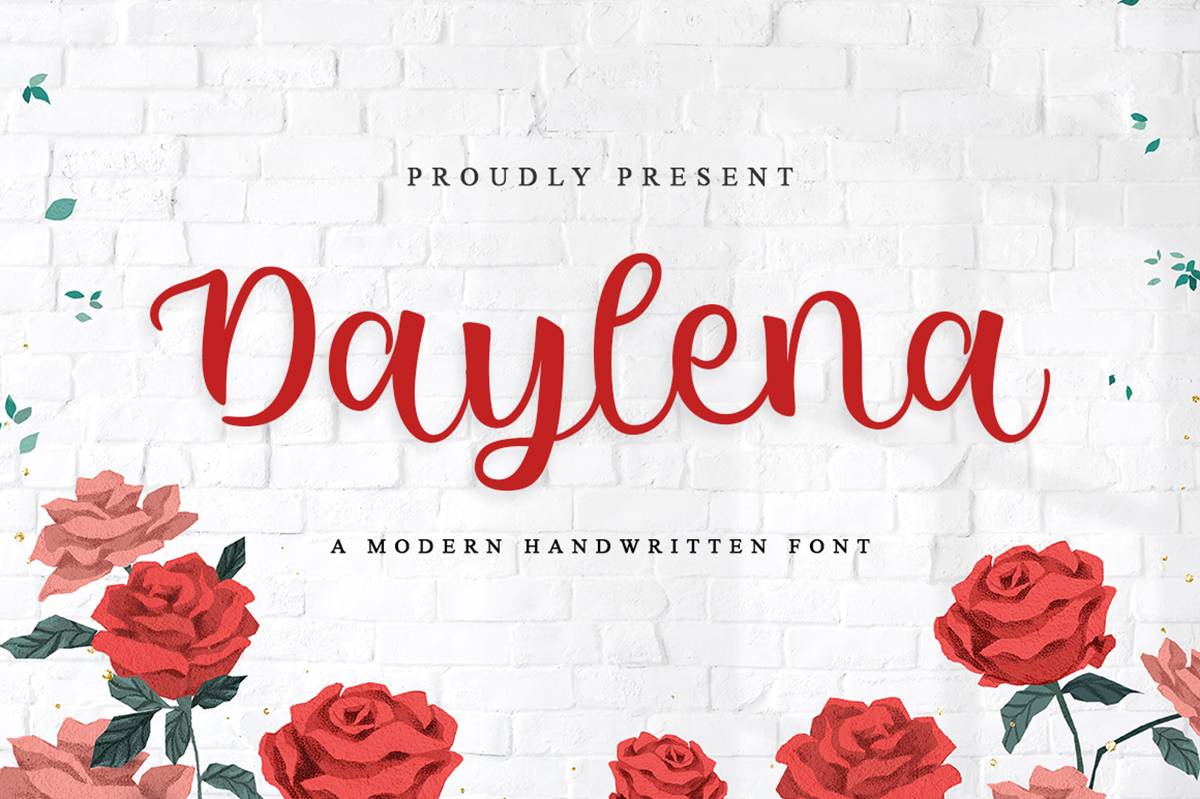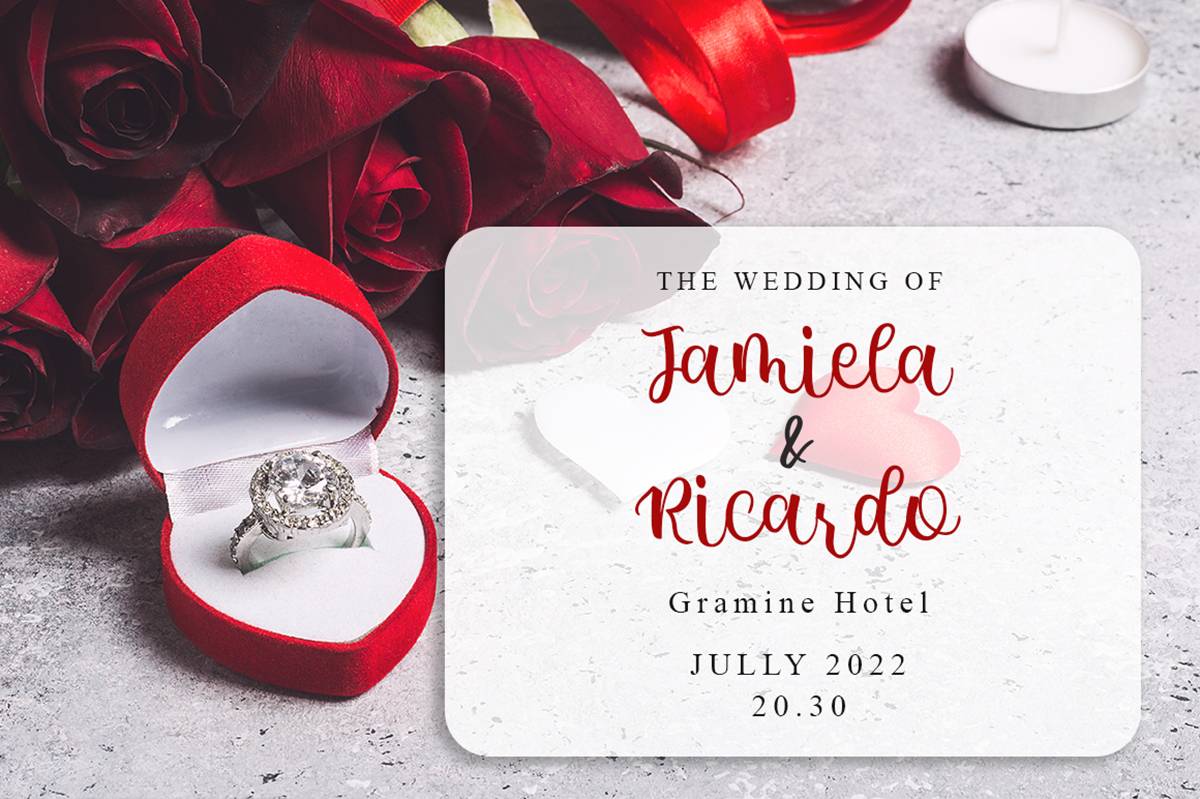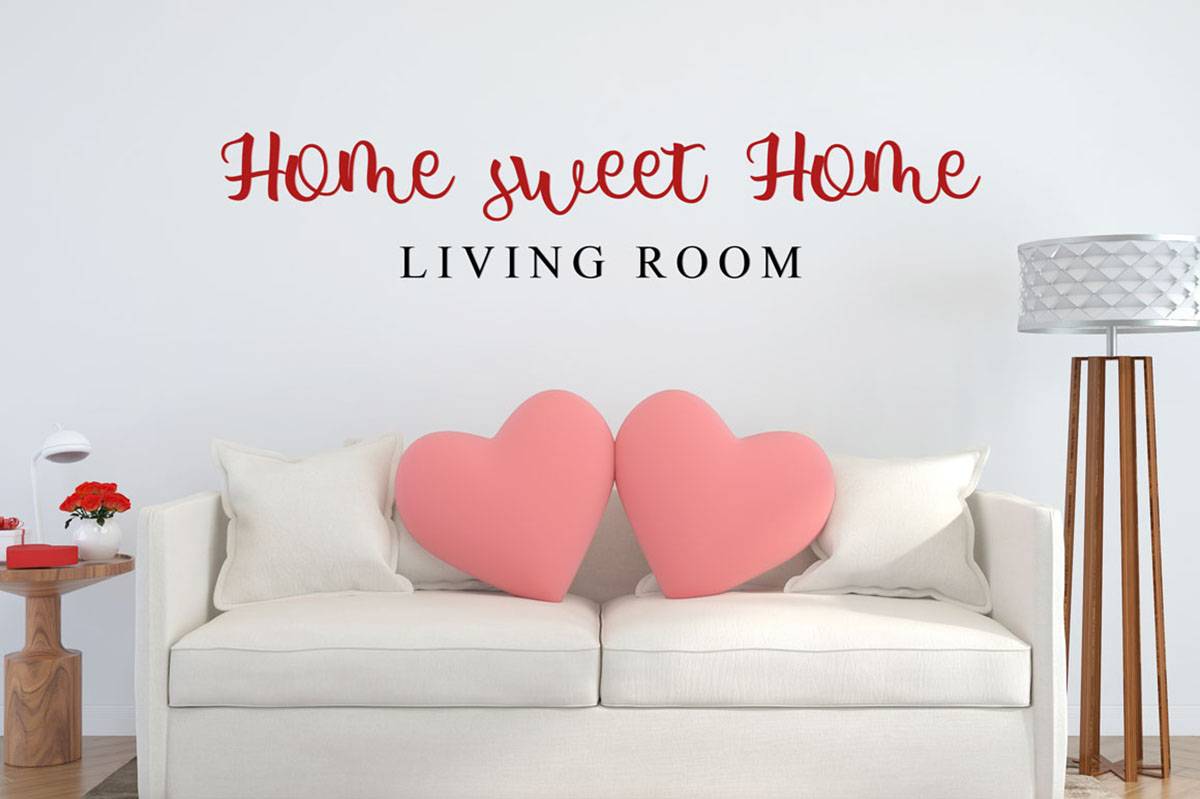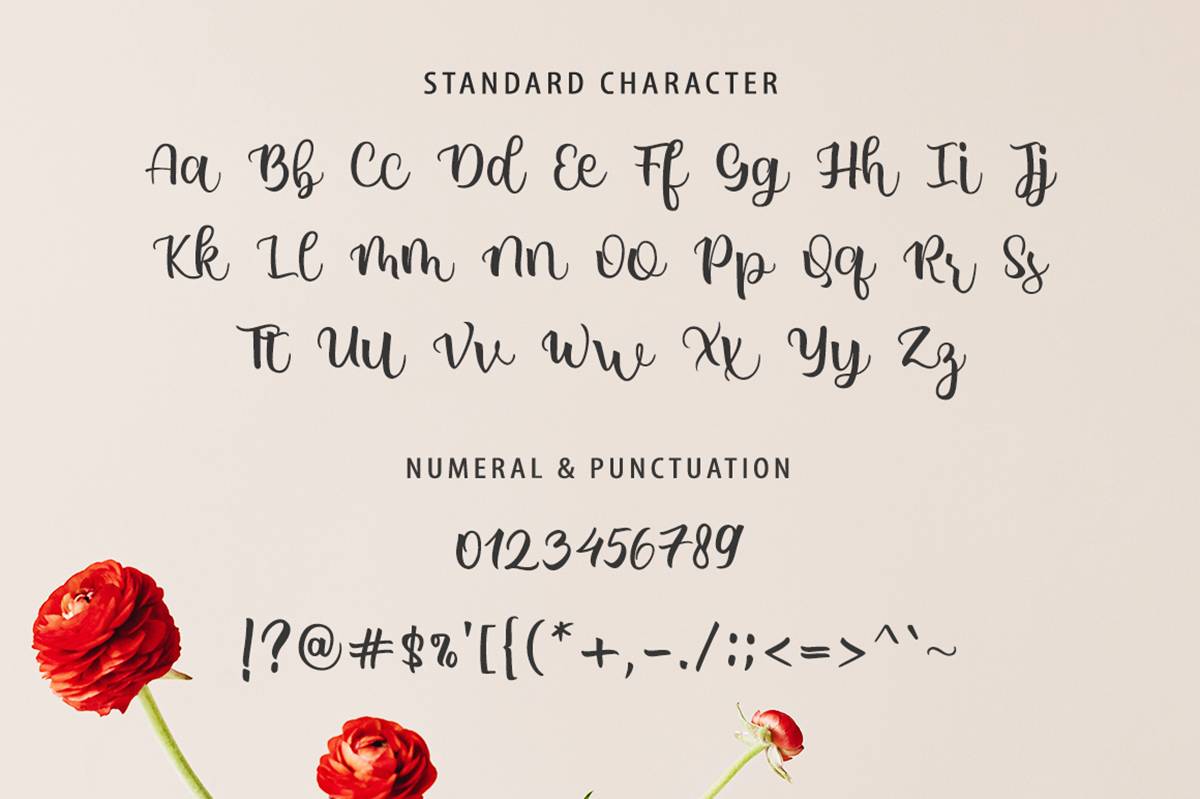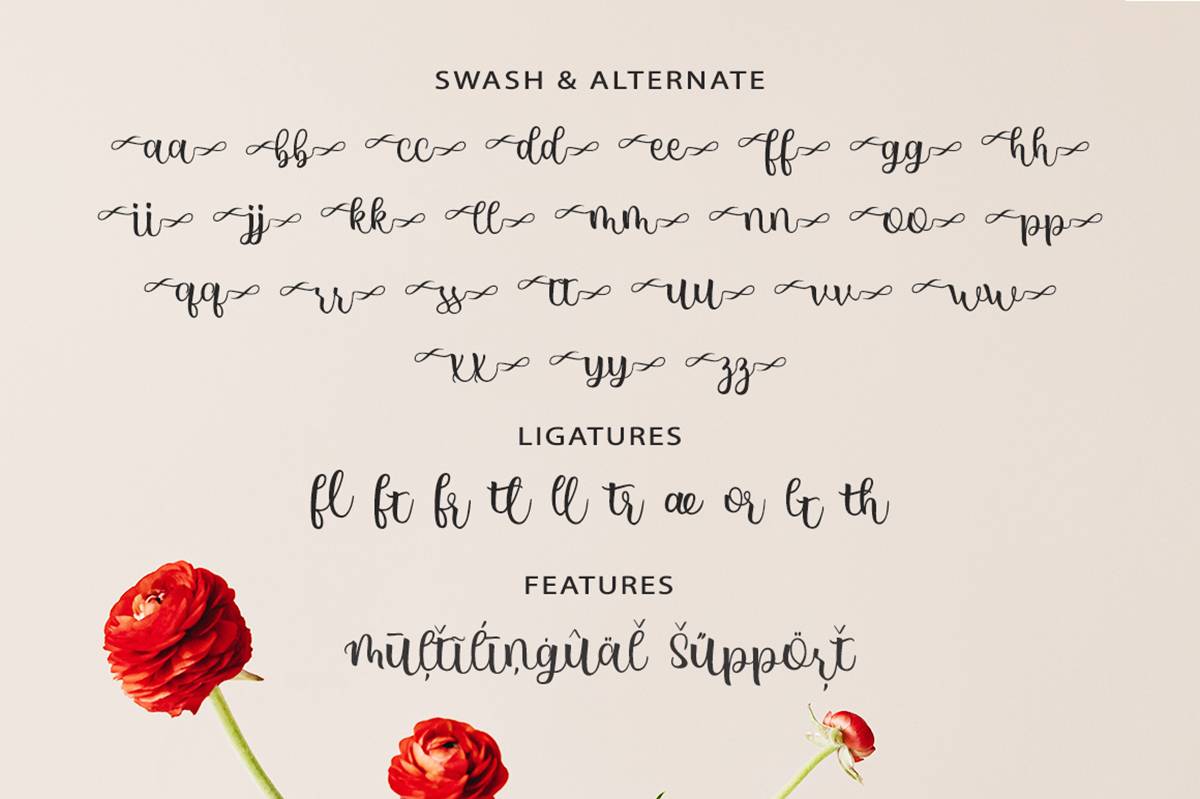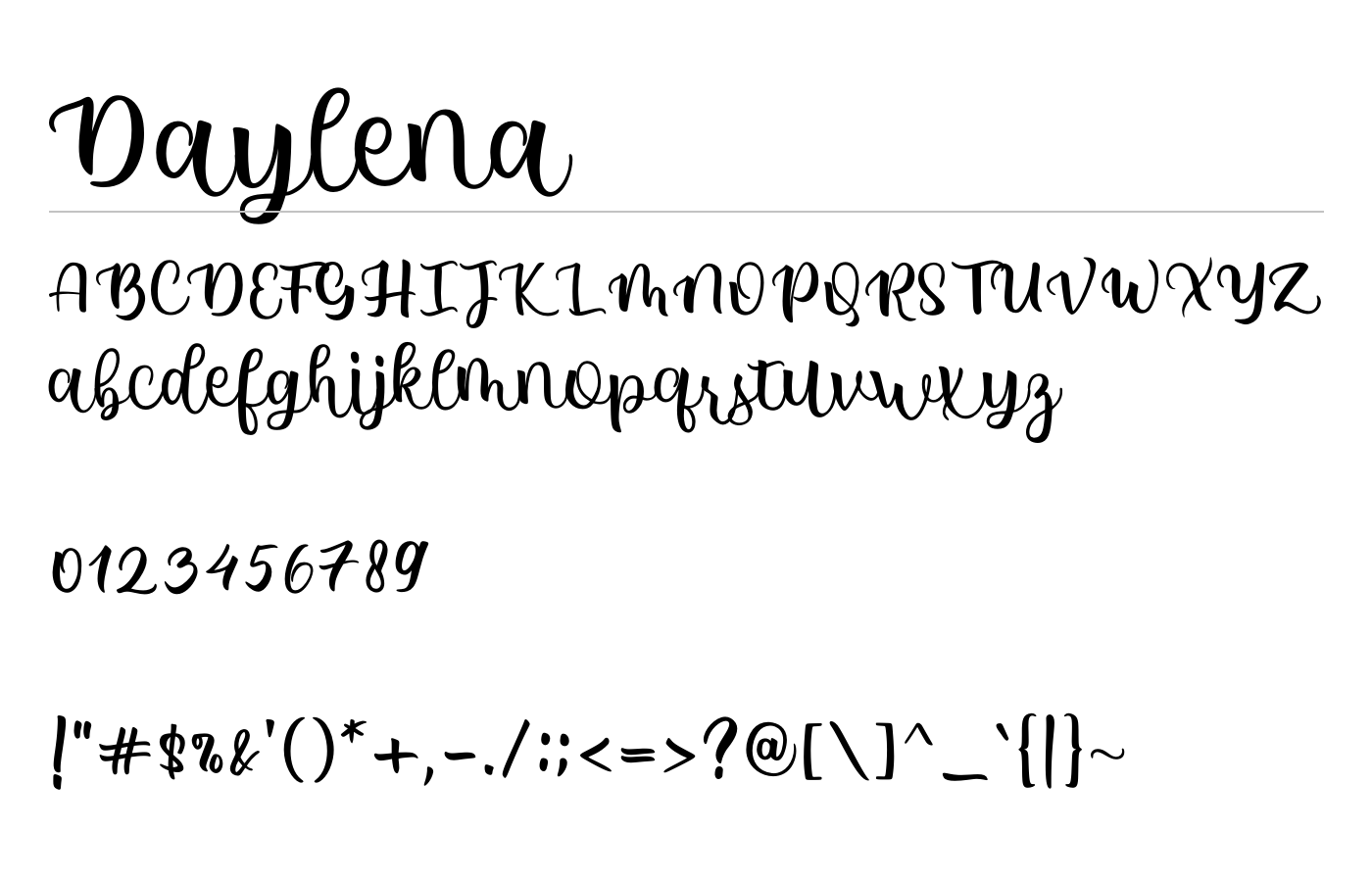
Daylena is a charming handwritten script font with a warm and casual feel, featuring rounded, flowing letterforms with moderate stroke contrast and a playful touch. Its friendly and approachable style makes it perfect for creative projects such as invitations, branding, and social media graphics where a personal, handcrafted vibe is desired. This font works well in headlines and decorative uses, bringing a lively and expressive personality to any design.
Daylena Font
About Daylena Font
| Font family | Daylena Font |